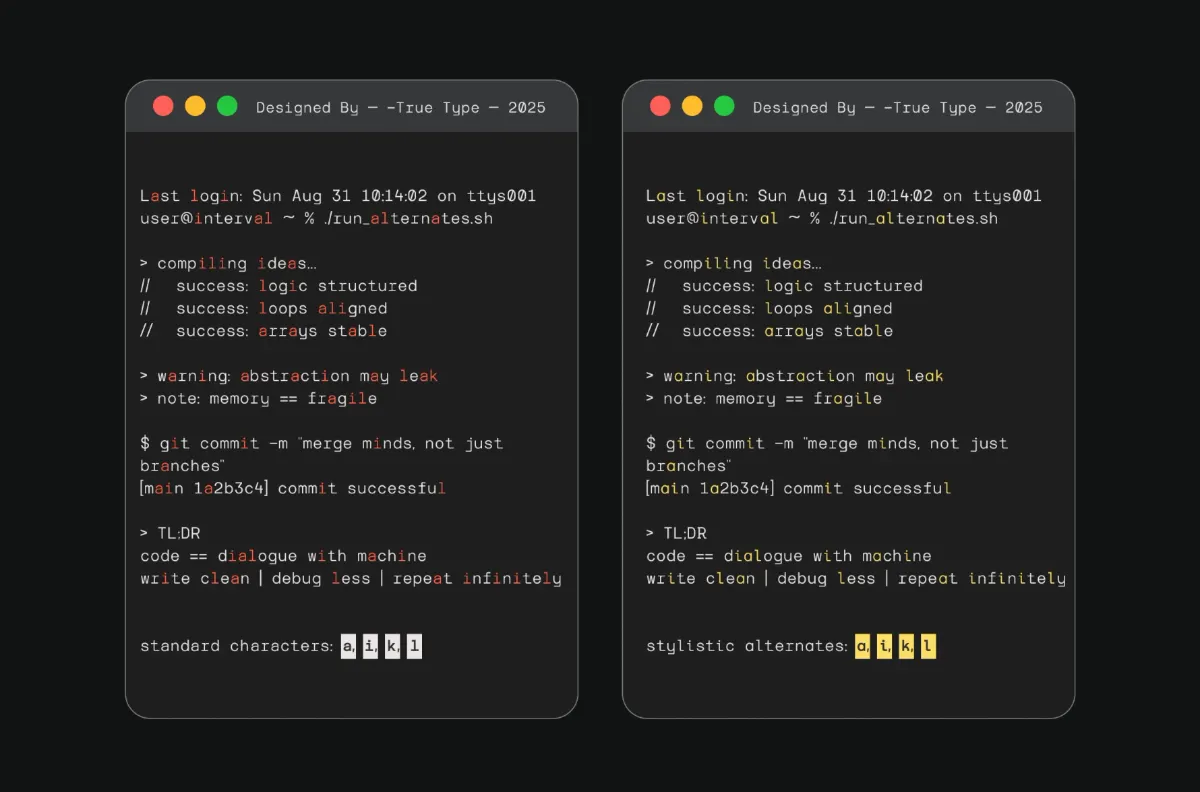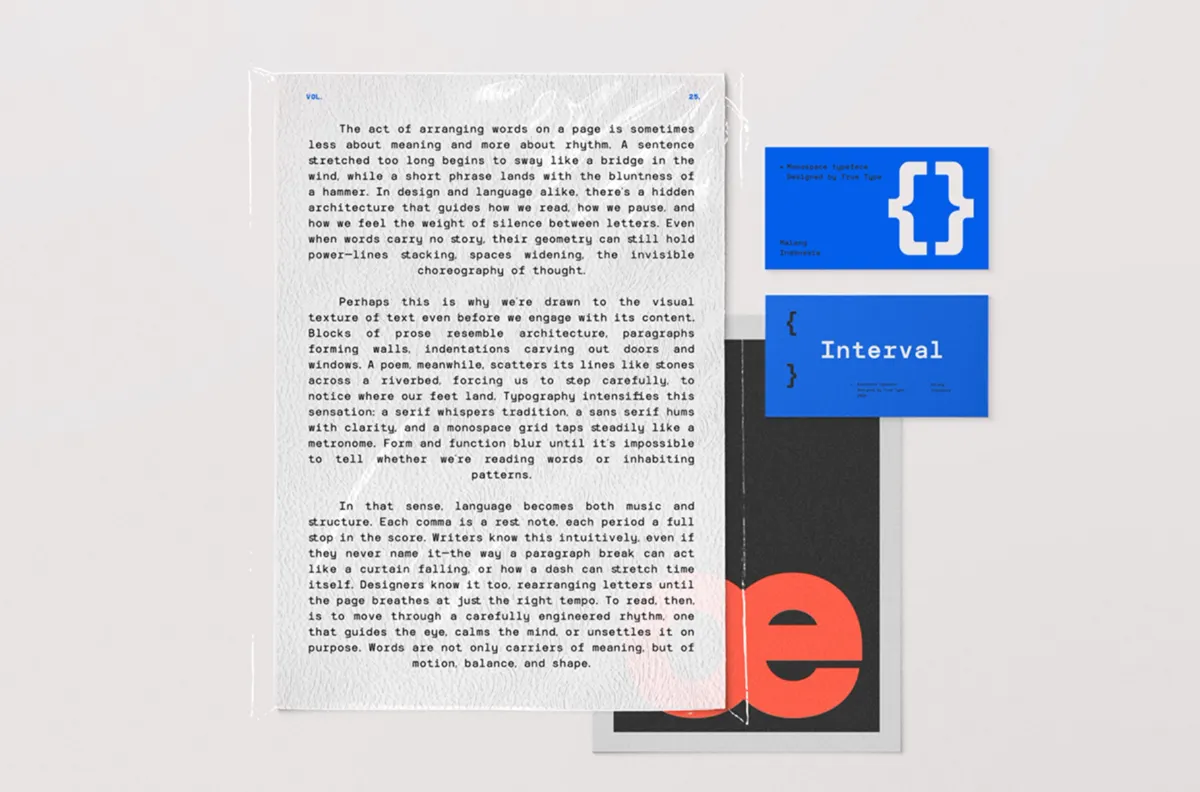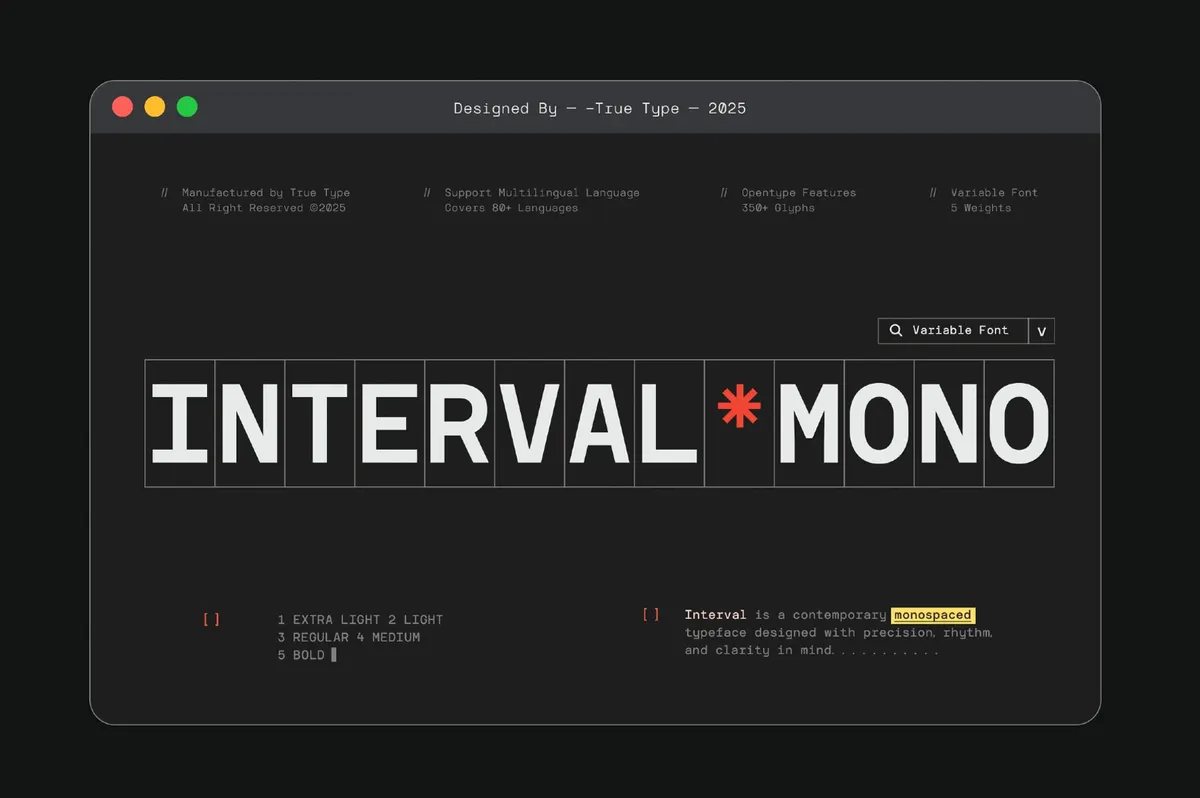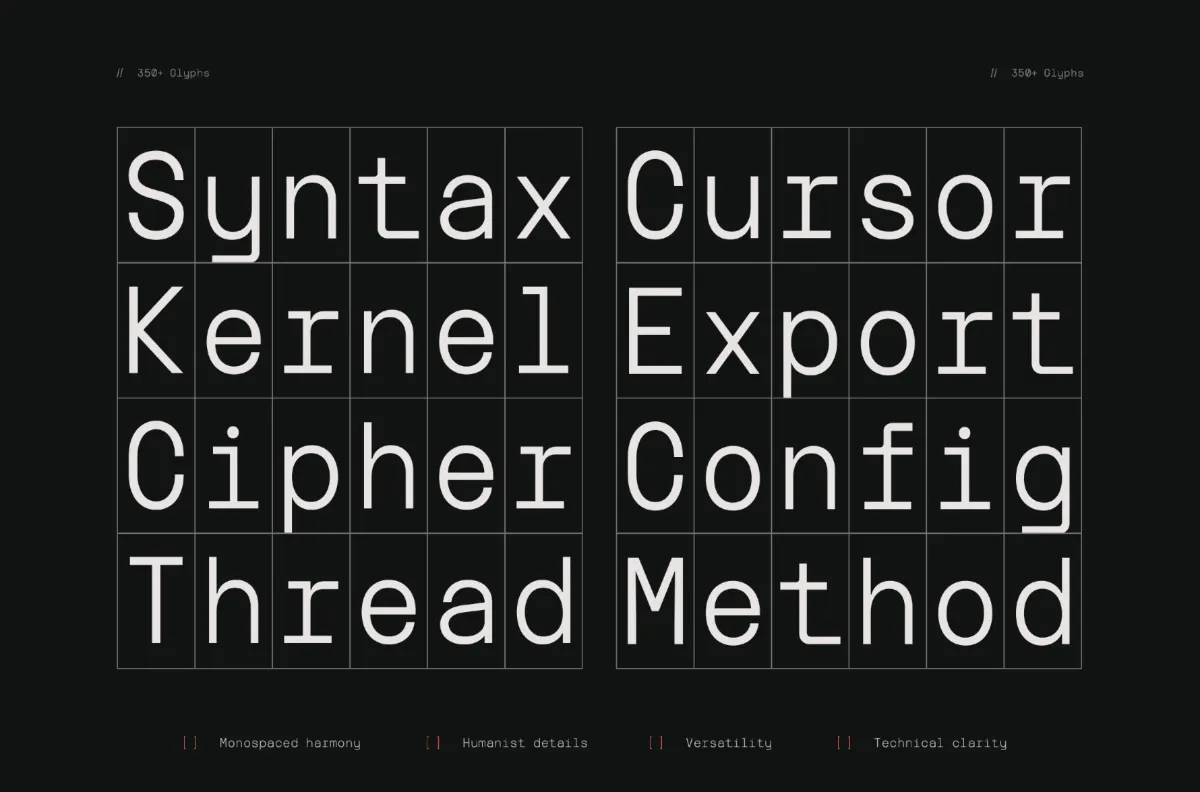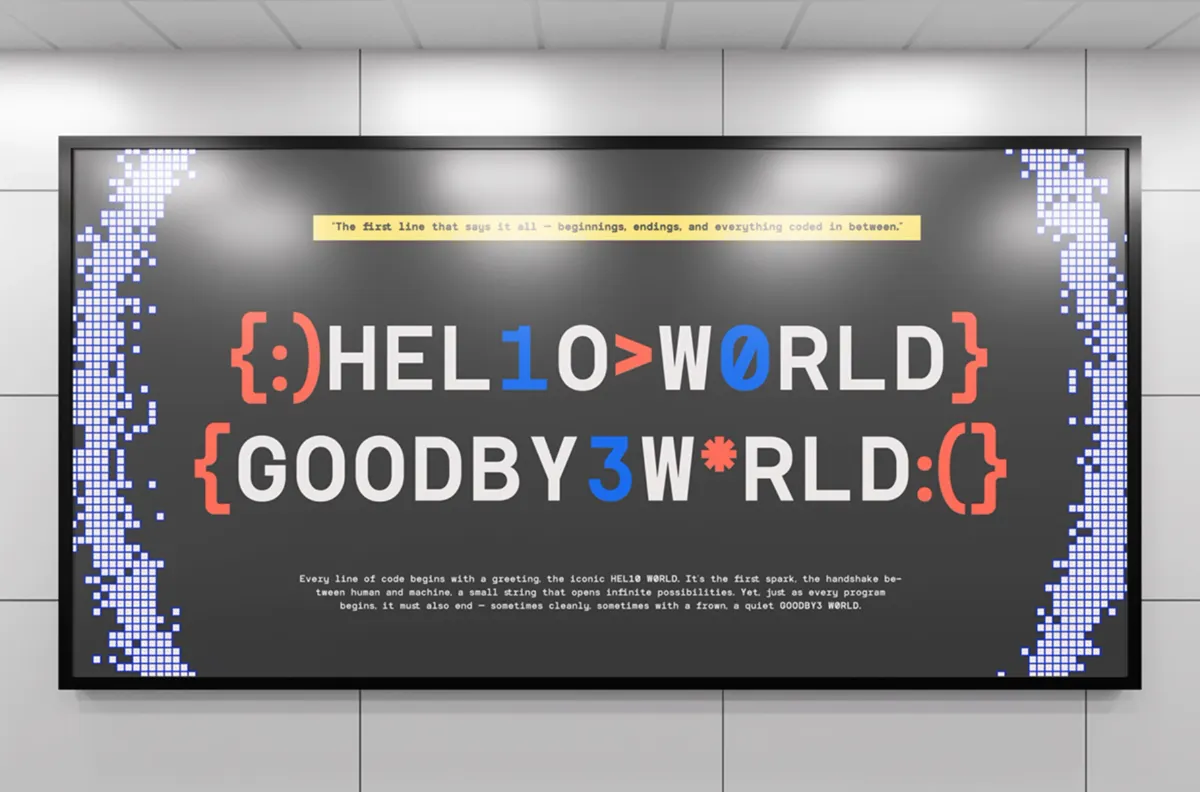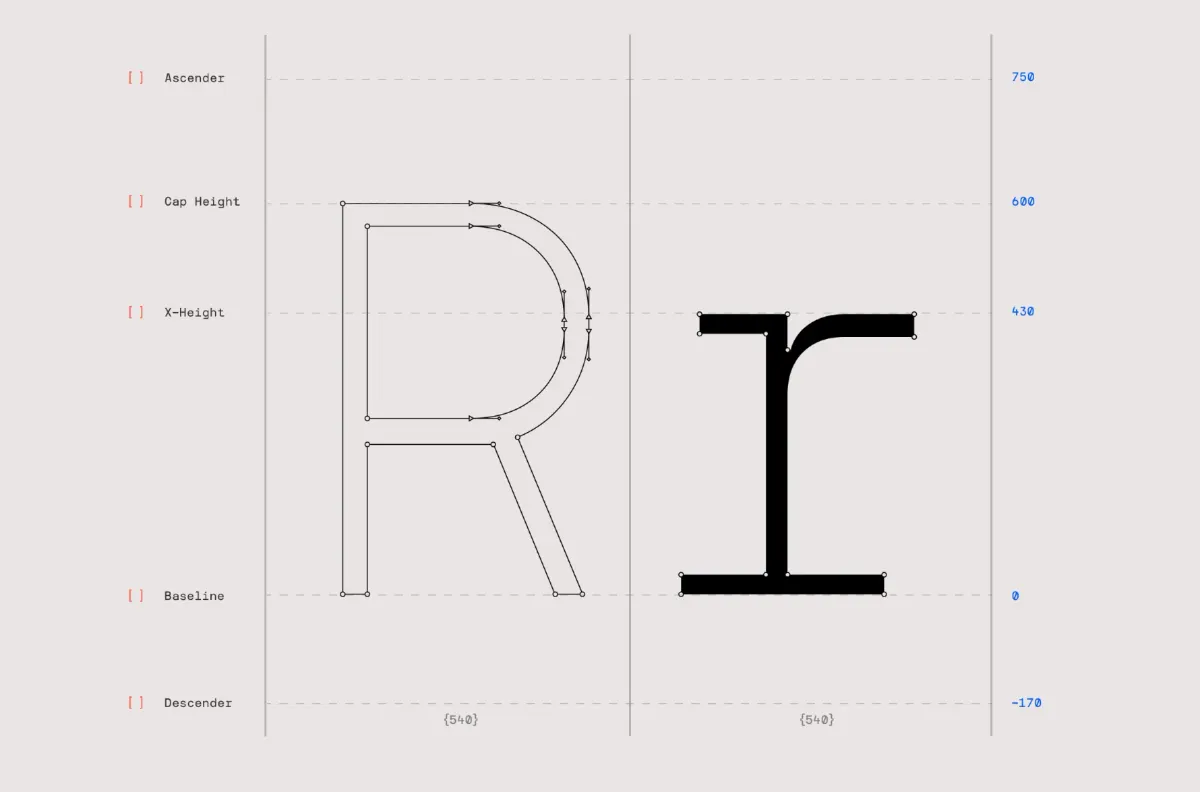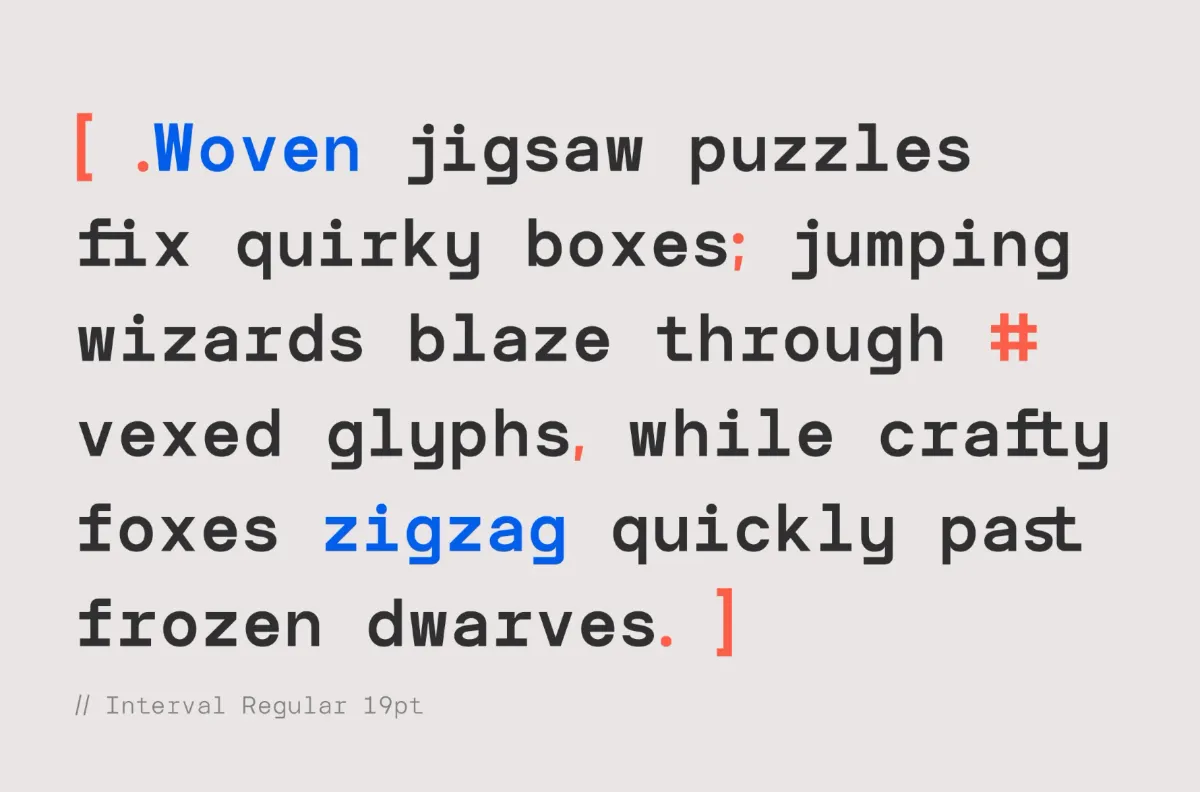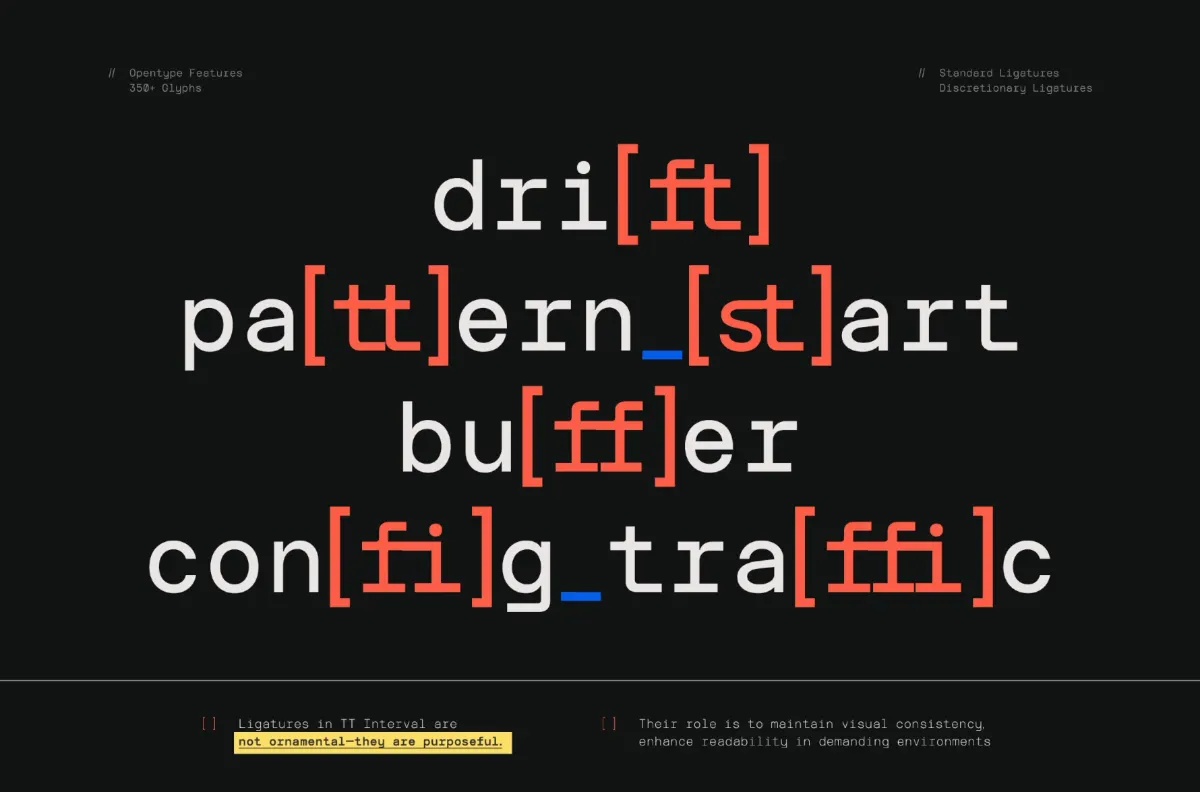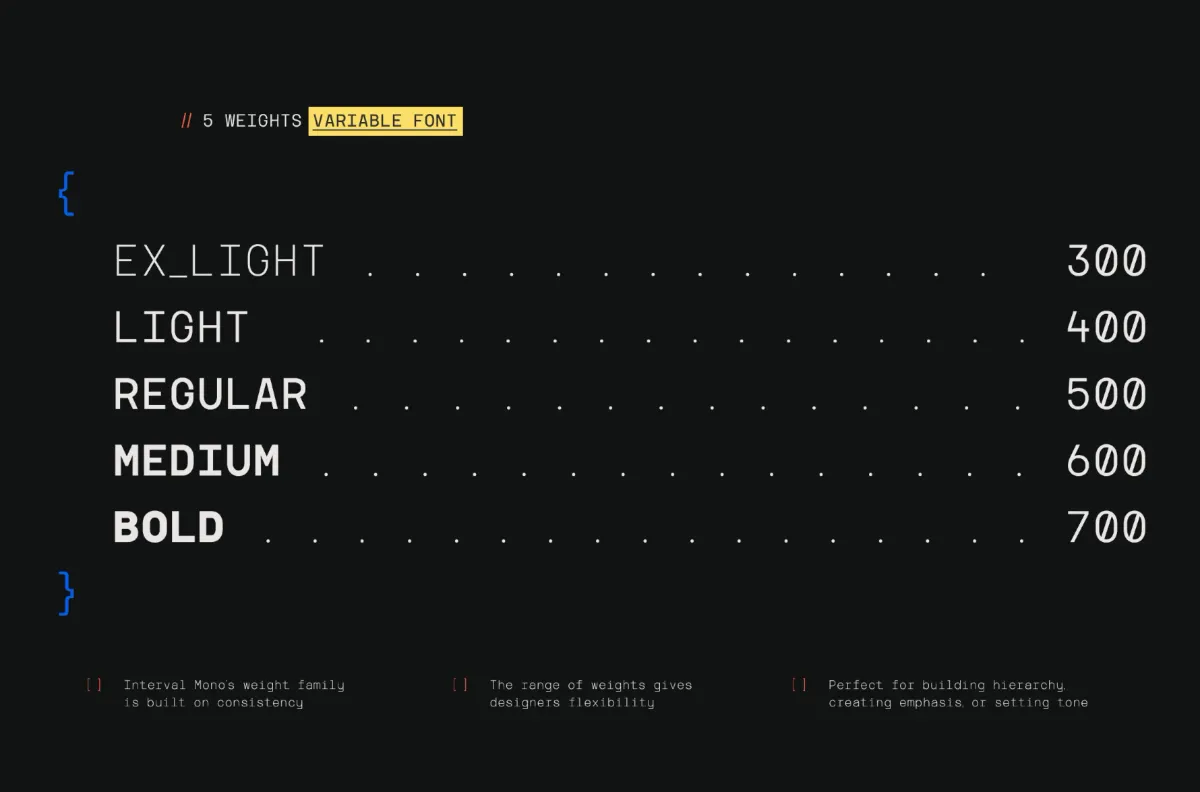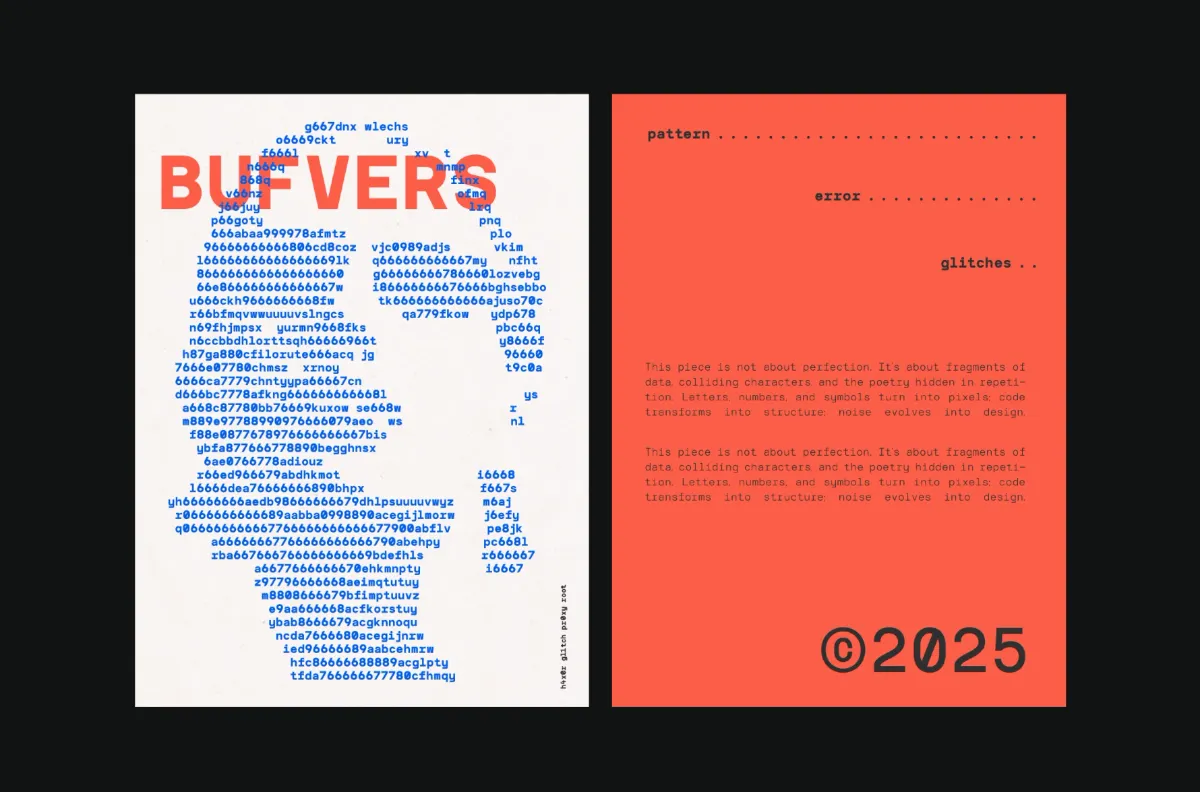
TRT Interval - Mono-Style Sans Font
Interval takes its rhythm from classic monospace and geometric typefaces — consistent stroke weight, a modular grid underneath every letter — then relaxes the strict fixed-width discipline in favor of more natural, legible proportions. Alternate forms on select characters add a human touch without breaking the overall structure, keeping the typeface precise rather than mechanical.
It reads best where that quiet, grid-built rhythm matters most: branding and wordmarks, editorial layouts, and interface type. Use it for logotypes, headlines, dashboards, and product UI copy.
• 5 styles: Extra Light, Light, Regular, Medium, Bold;
• Uppercase & Lowercase;
• Numerals, punctuation & symbols;
• Stylistic alternates on select characters, standard and discretionary ligatures, fractions, ordinals, superscript figures;